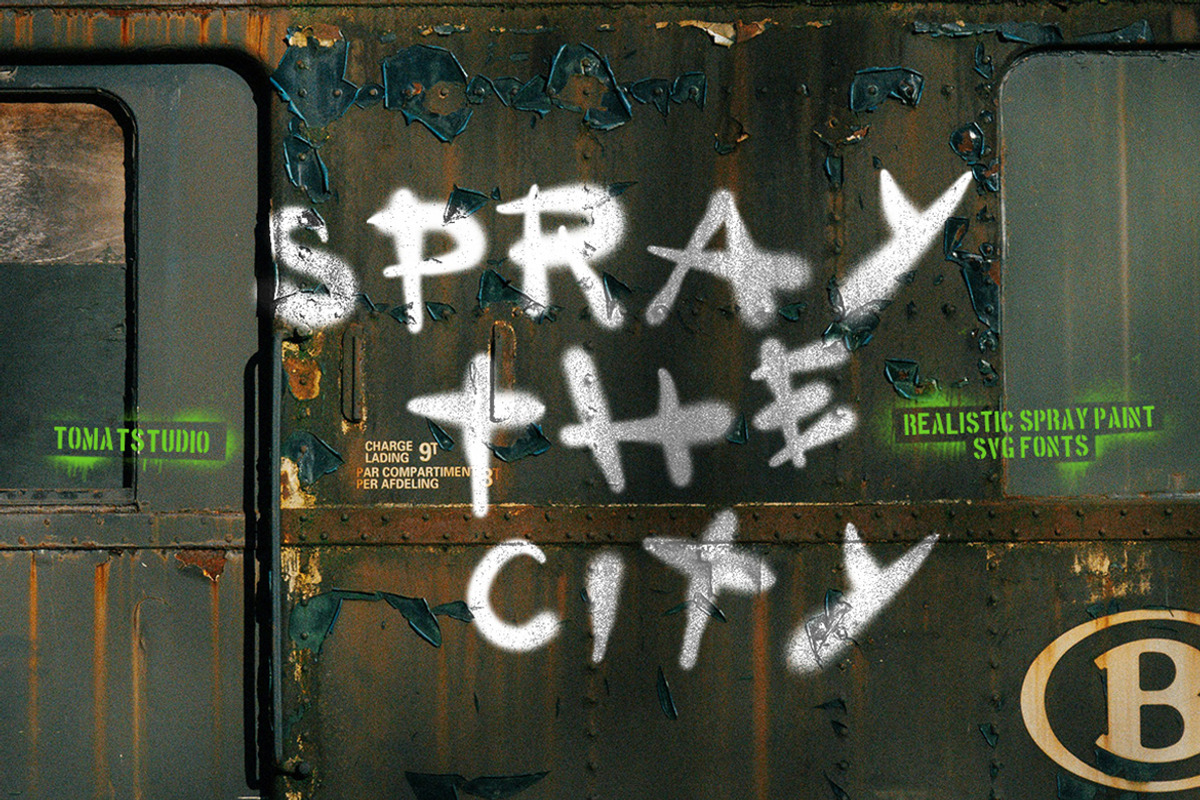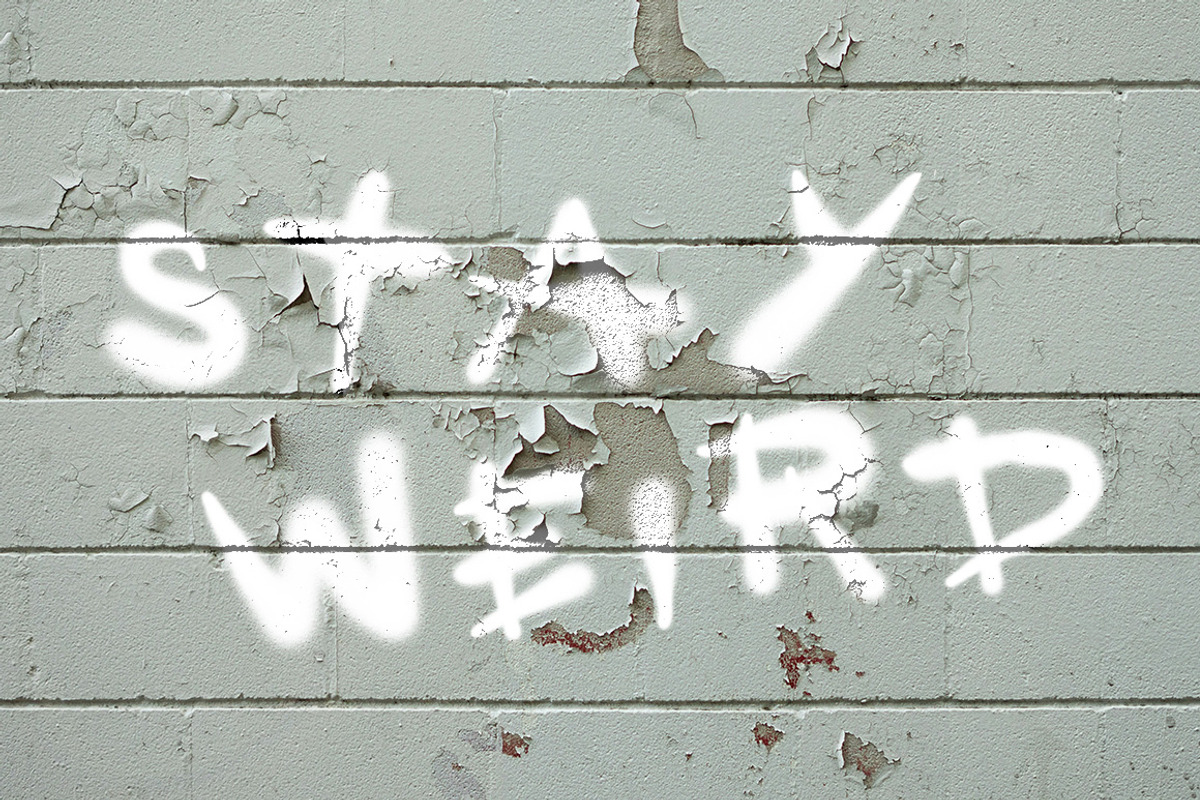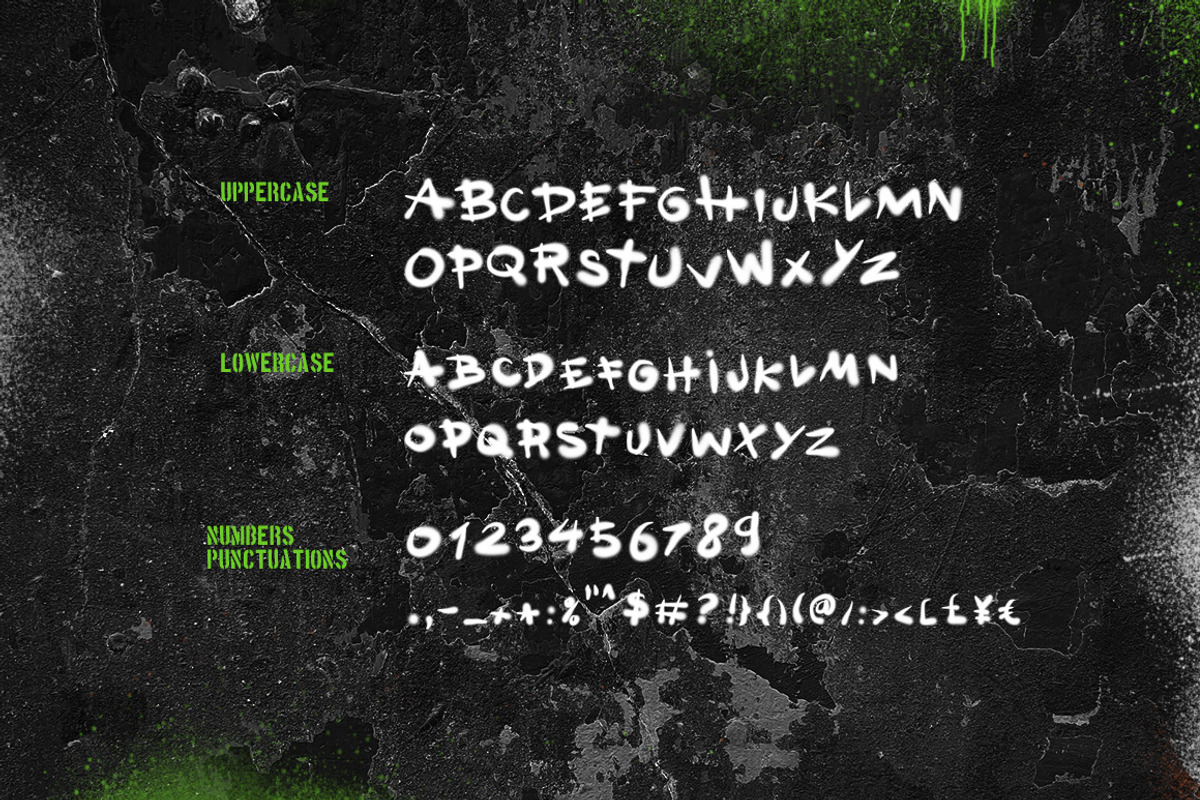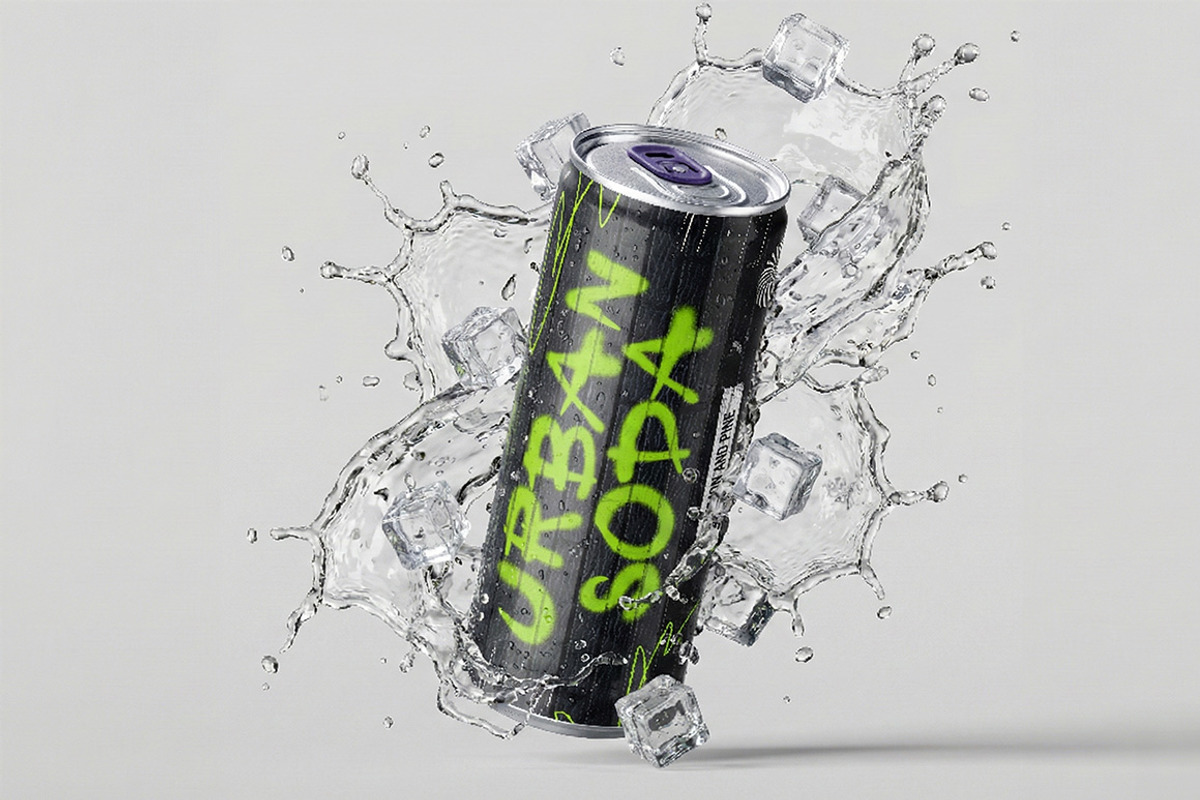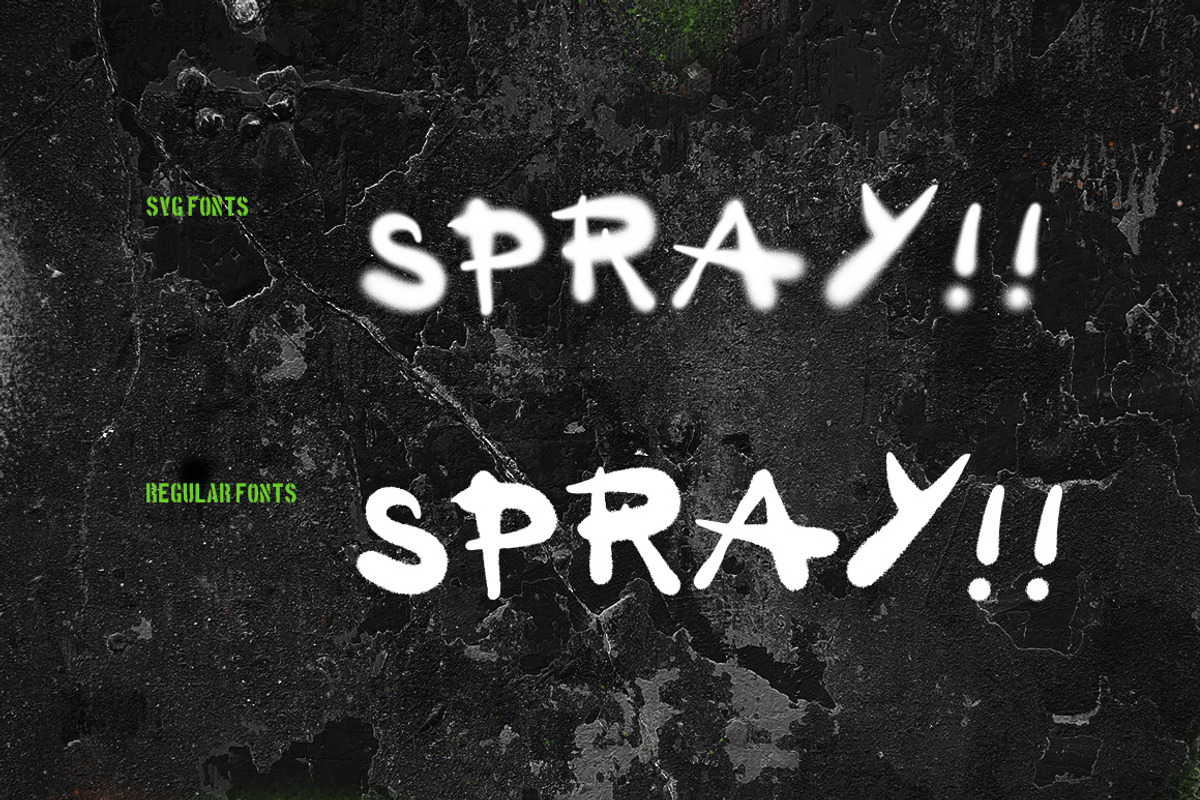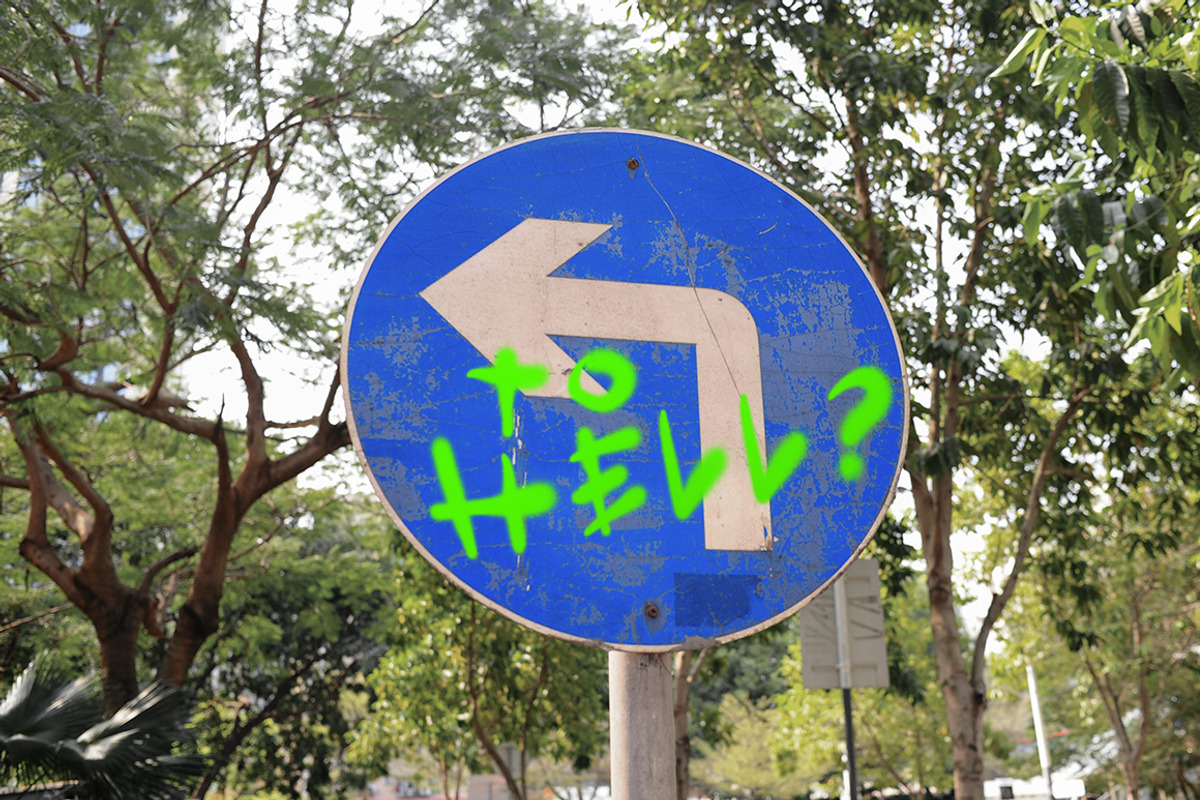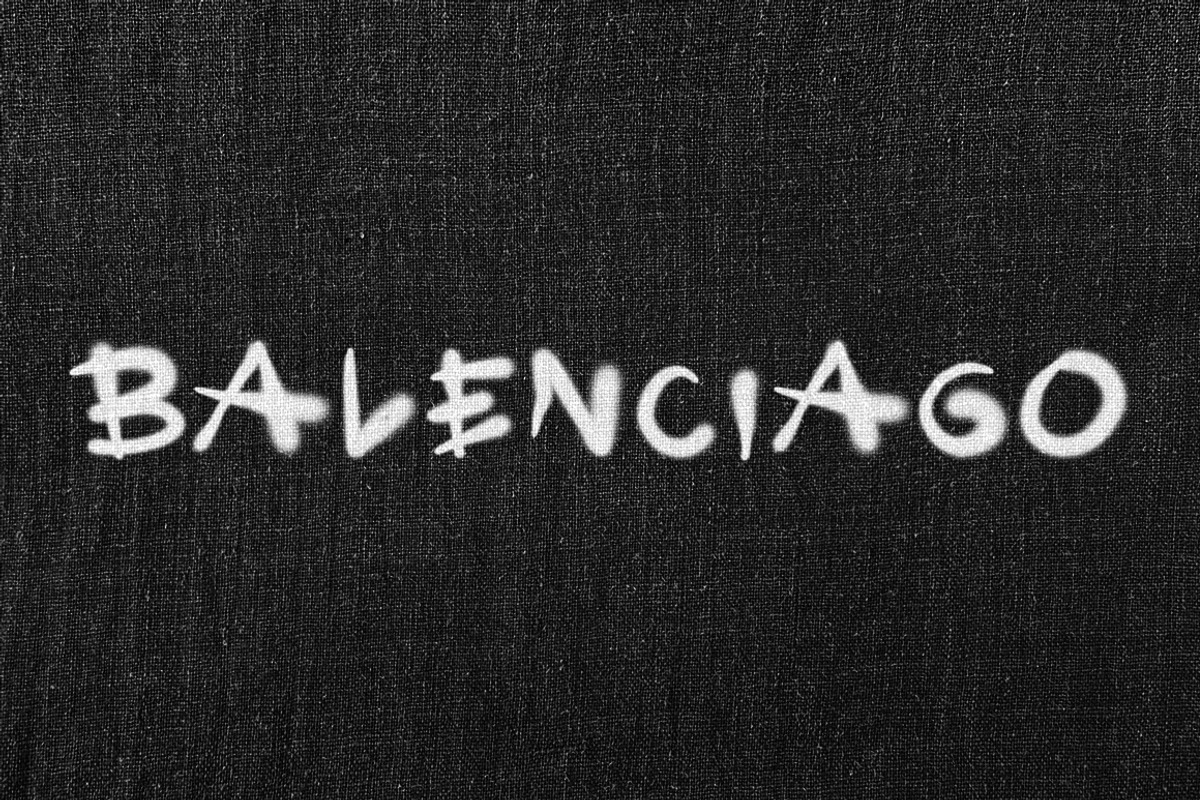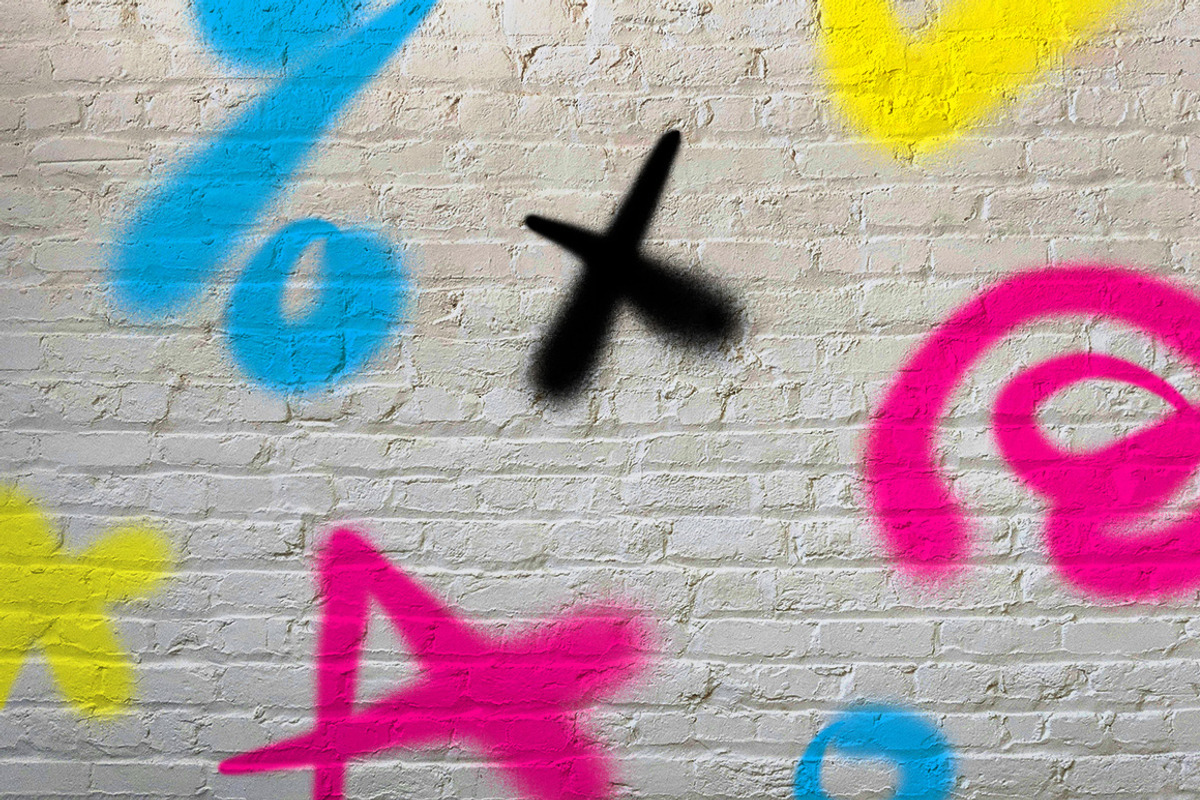
Spray the City SVG Fonts
This font is digitally created with a strong focus on realism, inspired by the look of real spray paint. It delivers an authentic street-style appearance while remaining clean and easy to use in modern design projects.
The style is intentionally messy yet visually balanced, making it perfect for raw, grunge, urban, and rebellious themes. Whether you’re working on posters, album covers, streetwear branding, or bold social media graphics, this font brings instant attitude and character.
The font comes in SVG and standard font formats. Both uppercase and lowercase are designed as all caps, with the lowercase set working as alternate characters to give you more variation and creative flexibility.
These two versions are designed to complement each other, giving you more flexibility and creative combinations to elevate your artwork.